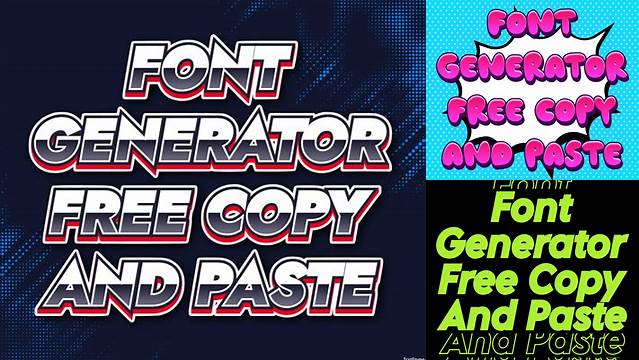
Free Font Creator: Copy And Paste Cool Fonts Easily
Hey guys! Ever wanted to create your own unique fonts? Or maybe you just need a cool font for a project and want to copy and paste it easily? Well, you've come to the right place! In this article, we're diving deep into the world of font creation, exploring free tools and techniques that let you unleash your inner typographer. Whether you're a seasoned designer or a complete newbie, there's something here for everyone. We'll cover everything from using online font generators to understanding the basics of typography, so buckle up and let's get started!
Understanding Fonts and Typography
Before we jump into creating and copying fonts, let's take a moment to understand what fonts and typography are all about. Think of fonts as the specific design of letters, numbers, and symbols. Arial, Times New Roman, and Comic Sans (yes, even Comic Sans!) are all examples of fonts. Typography, on the other hand, is the art and technique of arranging type to make written language legible, readable, and appealing. It's about choosing the right font, size, spacing, and other elements to create a visual hierarchy and convey the message effectively.
Typography is a crucial element of design. It shapes how we perceive and interact with text. A well-chosen font can enhance the readability and visual appeal of your content, while a poorly chosen one can make it difficult to read and detract from your message. For instance, using a serif font like Times New Roman can evoke a sense of tradition and formality, while a sans-serif font like Arial might convey modernity and simplicity. The right typeface can even set the mood and reflect the brand personality. A playful, whimsical font can be perfect for a children's book, but not so much for a legal document. To really get into font creation, it’s essential to know the difference between font types – Serif, Sans-serif, Script, and Decorative – and how they are each best applied to create impactful designs.
Key Typography Terms
Let's quickly go over some key typography terms that you'll encounter when working with fonts:
- Serif: These are the small decorative strokes that finish off the ends of letters. Think Times New Roman or Garamond. Serif fonts often convey a sense of tradition and formality. Serifs guide the reader’s eye along the line, making serif fonts preferred for printed materials like books and newspapers where large blocks of text are common. The small strokes at the end of each letter make the letters appear linked, which aids in reading flow and comprehension.
- Sans-serif: These fonts don't have serifs. Arial, Helvetica, and Open Sans are common examples. Sans-serif fonts are generally considered more modern and clean. Their simplicity makes them ideal for digital displays, where the crisp, unadorned letterforms offer superior readability on screens. In web design and mobile interfaces, sans-serif fonts are favored for their clarity and legibility, particularly at smaller sizes.
- Script: These fonts resemble handwriting and often have a flowing, elegant style. Think Brush Script or Lobster. Script fonts can add a personal touch, but they should be used sparingly as they can be harder to read in large blocks of text. Script fonts are often used for invitations, logos, and decorative headings where a touch of elegance or personality is desired.
- Decorative: These fonts are highly stylized and can range from playful to ornate. Think Impact or Comic Sans. Decorative fonts are best used for headlines and short bursts of text, as they can be distracting in body text. Decorative fonts allow designers to inject a lot of character and mood into their designs.
- Kerning: This refers to the spacing between individual letters. Adjusting kerning can improve readability and visual appeal. Good kerning ensures that the spaces between letters are visually balanced, preventing letters from appearing too crowded or too far apart.
- Tracking: This is the overall spacing between all letters in a block of text. Tracking affects the density of text and should be adjusted carefully to maintain readability.
- Leading: This refers to the vertical space between lines of text. Proper leading makes text easier to read by providing visual breathing room between lines.
Free Font Creation Tools
Okay, now that we have a basic understanding of fonts and typography, let's get into the exciting part: creating your own fonts! There are several free tools available that make this process accessible to everyone. Let's explore a few of the most popular options:
Calligraphr: This is a fantastic tool for turning your handwriting into a font. You simply download a template, fill it in with your characters, upload it back to Calligraphr, and voila! You have your own handwritten font. Calligraphr’s appeal lies in its simplicity and the personal touch it adds to font creation. The generated fonts retain the unique nuances of your handwriting, making them perfect for personalized invitations, branding materials, and artistic projects. The process is straightforward, but achieving a polished, professional result often requires some experimentation and fine-tuning of your handwriting to ensure consistency and legibility.
FontStruct: This online font editor allows you to build fonts using geometric shapes. It's a great option if you're looking for a more structured and geometric style. FontStruct stands out for its grid-based interface, which simplifies the process of creating fonts with a geometric or pixelated aesthetic. Users assemble characters from a set of predefined shapes, making it an excellent tool for beginners to grasp the fundamentals of font design. While its grid-based approach may seem limiting, it fosters creativity within constraints, leading to unique and visually appealing typefaces. FontStruct’s community aspect is also noteworthy, as users can share their creations and draw inspiration from others.
BirdFont: This is a free and open-source font editor that offers more advanced features. It's a great option if you want more control over the design of your font. BirdFont is a comprehensive, free, and open-source font editor that provides advanced features for more seasoned designers. It supports a variety of font formats and offers precise control over character design, kerning, and hinting. BirdFont's strength lies in its flexibility and the depth of customization it offers, making it suitable for complex font projects. While its interface may be initially daunting for beginners, its wealth of features and the support available from its community make it a powerful tool for creating high-quality, professional-grade fonts. Its open-source nature ensures ongoing development and adaptation to evolving design needs.
Creating Your First Font: A Step-by-Step Guide
Let's walk through a general step-by-step guide to creating your own font using these tools:
- Choose your tool: Select the font creation tool that best suits your needs and skill level. Calligraphr is great for handwritten fonts, FontStruct is ideal for geometric fonts, and BirdFont offers more advanced features.
- Plan your font: Decide on the style and character of your font. Will it be serif or sans-serif? Formal or playful? Consider the intended use of your font and design accordingly. Planning your font's personality and intended use helps guide design decisions throughout the creation process. Think about the specific projects or contexts where the font will be used, such as headings, body text, or logos. This planning stage is essential for ensuring the font aligns with your aesthetic goals and functional requirements.
- Design your characters: Start designing the individual letters, numbers, and symbols. Pay attention to consistency in stroke weight, letter spacing, and overall style. Consistency is key to creating a cohesive and professional-looking font. Maintain uniform stroke thicknesses, consistent character heights, and balanced letter spacing. Use guidelines and grids provided by the font editor to ensure uniformity. Pay particular attention to the relationships between characters, ensuring they complement each other visually.
- Test your font: Once you've created a basic set of characters, test your font by typing out words and sentences. This will help you identify any issues with spacing, legibility, or overall appearance. Testing your font in various contexts allows you to assess its readability and aesthetic impact. Type out different words, sentences, and paragraphs to identify areas where adjustments may be needed. Pay attention to how the letters interact with each other and how the font performs at different sizes and resolutions. This feedback loop is critical for refining your font and ensuring it meets your standards.
- Refine and export: Make any necessary adjustments to your characters based on your testing. Once you're happy with your font, export it in a usable format, such as TTF or OTF. Refining your font is an iterative process that involves tweaking individual characters, adjusting spacing, and ensuring overall consistency. Use the testing phase feedback to identify areas needing improvement. Pay attention to details such as kerning, leading, and tracking to optimize readability. Once you're satisfied with the font's appearance and performance, export it in a widely supported format like TTF or OTF to ensure compatibility across different platforms and applications.
Free Copy and Paste Fonts
Now, let's talk about copying and pasting fonts. Sometimes, you might not need to create a font from scratch. You might just want to use a cool font you found online in your project. Luckily, there are many websites that offer free copy and paste fonts.
Where to Find Copy and Paste Fonts
These websites typically use Unicode characters to create stylized text that you can copy and paste into social media posts, documents, or other applications. However, keep in mind that these fonts are often not